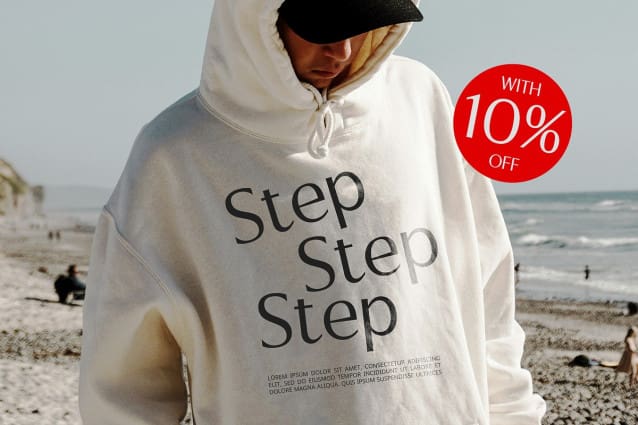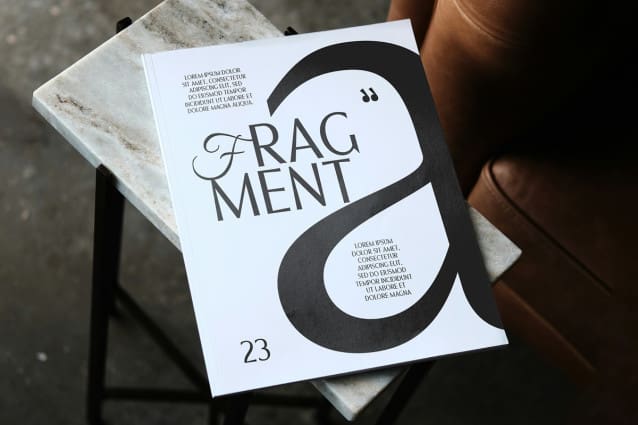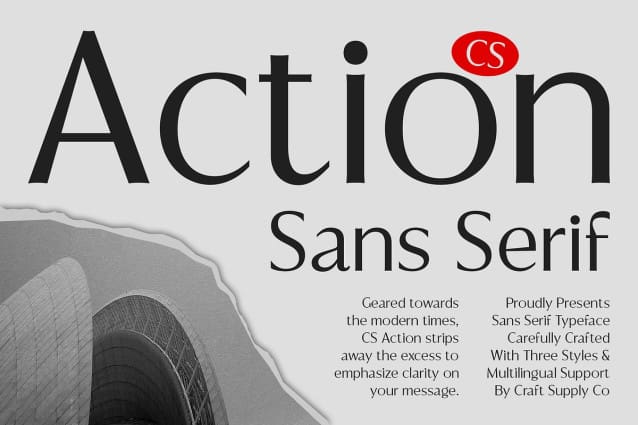
CS Action Font
CS Action Font is a modern sans-serif font that embodies a clean, contemporary aesthetic with its minimalist design. The font features sleek, unadorned letterforms that provide a polished and sophisticated appearance, enhancing readability and versatility across various applications.
Uncomplicated Elegance The minimalistic style of CS Action eliminates unnecessary embellishments, focusing purely on clarity and functionality. This streamlined approach ensures that the font remains both professional and effective, making it suitable for a wide range of uses.
Perfect for Professional Settings Ideal for corporate branding, professional documents, and modern web design, CS Action delivers a refined and impactful presentation. Its contemporary design ensures that it stands out in any professional setting, offering a clean and effective visual communication tool for modern needs.